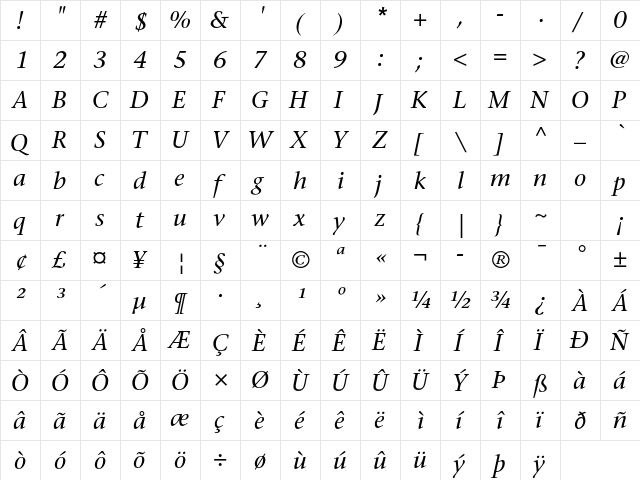
ITC Stone Serif Std Medium Italic
| Designer | Sumner Stone, John Renner |
Design Context for ITC Stone Serif Std Typeface
ITC Stone Serif Std carries the refined structure of traditional serif typography, with bracketed terminals and considered proportions that communicate credibility and craft. Its italic angle brings a sense of urgency and motion to the letterforms.